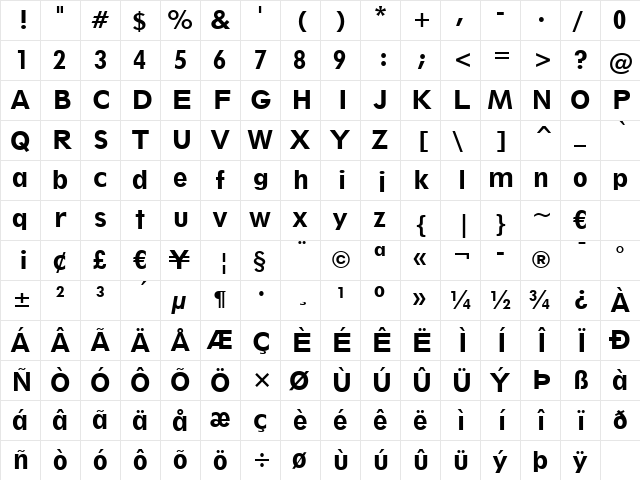
Geometr212 Bk BT Heavy
Geometr212 Bk BT takes a measured approach to typography — its balanced proportions and neutral character make it a reliable workhorse for both digital and print work.